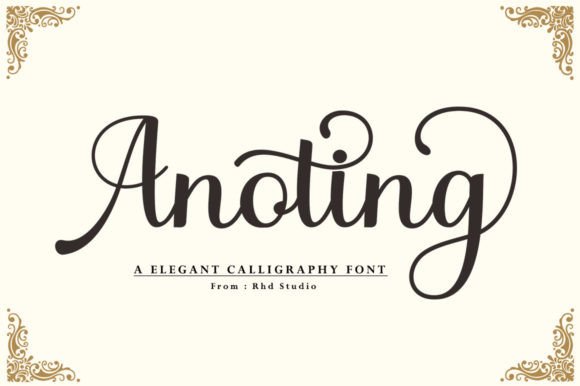
Introducing Anoting Font - The Gateway to Extraordinary Web Designs
In the vast expanse of digital expression, where creativity intertwines with technology, there lies a font that stands apart, transcending the boundaries of ordinary typography: Anoting Font. This captivating script font, hailing from the design house of studiorhd, is an artistic marvel that breathes life into your creative visions, transforming them into captivating masterpieces.
Anoting Font: A Symphony of Style and Distinctive Charm
Anoting Font is not just a collection of characters; it's an orchestra of visual harmony, a symphony of style that elevates your designs to new heights. Whether you're crafting eye-catching logos, designing elegant invitations, or weaving captivating social media posts, Anoting Font becomes your trusted companion, adding a touch of refined elegance and distinctive charm to every project.
Embrace the Power of Anoting: Unleash Your Creative Potential
With Anoting Font as your creative ally, you'll embark on a journey of endless possibilities. Its meticulously crafted curves and meticulously placed lines evoke a sense of sophistication and allure, captivating your audience's attention from the very first glance. Unleash your inner artist and let Anoting Font guide you towards creating designs that resonate, designs that leave an indelible mark on the digital canvas.
Anoting Font: The Ultimate Choice for Small Web Ads
In the realm of digital marketing, where space is precious and impact is paramount, Anoting Font emerges as the ideal choice for crafting small web ads that pack a punch. Its compact yet impactful design ensures that every character carries weight, delivering your message with clarity and panache. Captivate your audience, drive conversions, and watch your brand soar to new heights of success.
Unleash the Power of Anoting: A World of Visual Delights
Anoting Font is a versatile chameleon, effortlessly adapting to a myriad of design aesthetics. Whether you seek a classic, timeless look or a bold, contemporary vibe, Anoting Font seamlessly blends with your vision, enhancing it with its inherent elegance. Step into a world of visual delights, where every design project becomes a testament to your creative genius.
Embrace Anoting Font: A Journey of Creative Fulfillment
With Anoting Font as your trusted companion, you'll embark on a journey of creative fulfillment, where the boundaries of imagination dissolve and the possibilities are limitless. Express yourself with a font that understands your artistic vision, a font that amplifies your message and transforms your designs into captivating works of art.